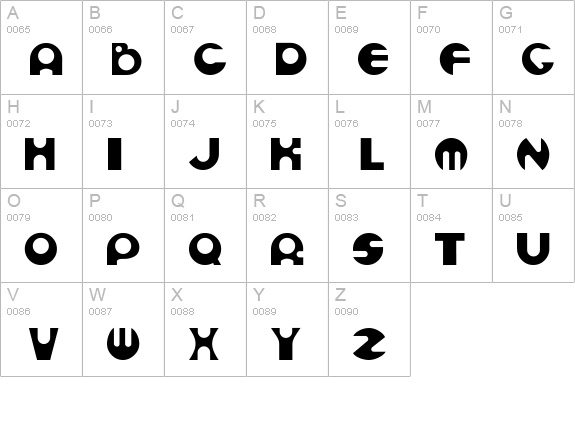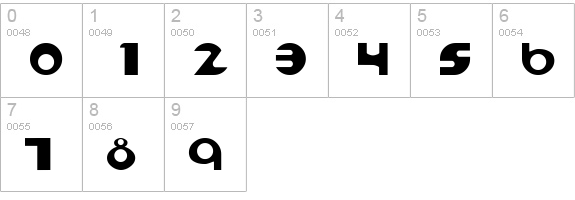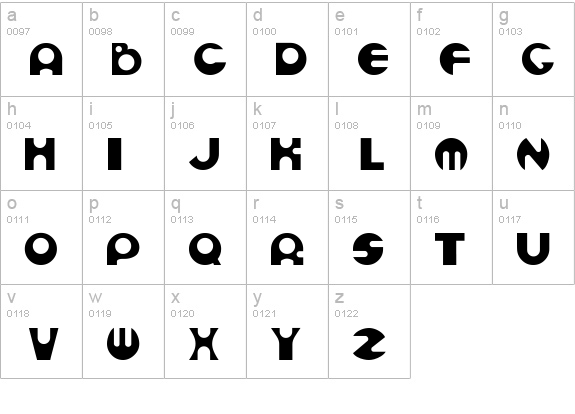
Sanderst Font Details
Sanderst font is a remarkable typeface that effortlessly combines elegance and modernity. With its clean lines and balanced proportions, Sanderst exudes a sense of sophistication that is perfect for a wide range of design projects. From branding and packaging to editorial layouts and websites, this font is versatile enough to elevate any creative endeavor. What sets Sanderst font apart is not only its stunning aesthetics but also its accessibility. This font is available for free, allowing designers and typographers to easily incorporate it into their work without any financial constraints. With Sanderst, creativity knows no bounds. To ensure that Sanderst font reaches as many designers as possible, it is freely available to download at FontsMarket.com. This user-friendly platform provides a seamless downloading experience, making it effortless for creatives to access this exceptional font and bring their visions to life. Whether you're working on a personal project or a professional endeavor, Sanderst font offers a touch of elegance and style that will undoubtedly captivate your audience. Download it for free today at FontsMarket.com and let your creativity soar.